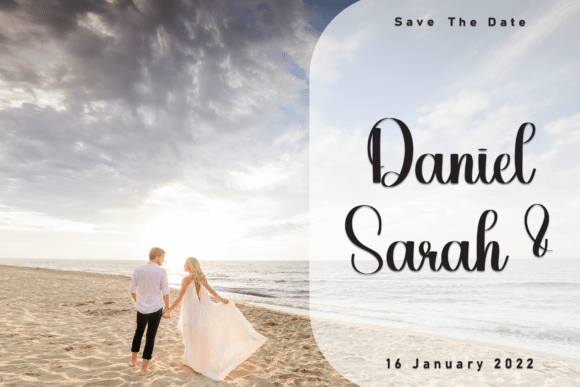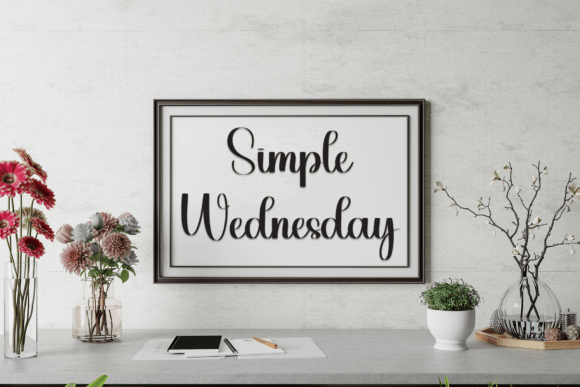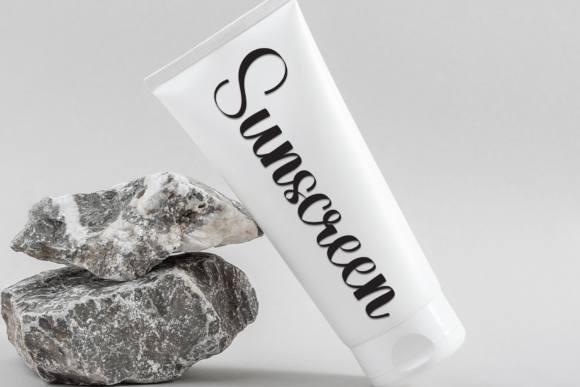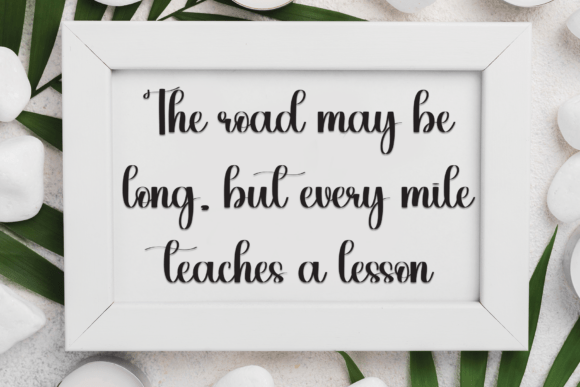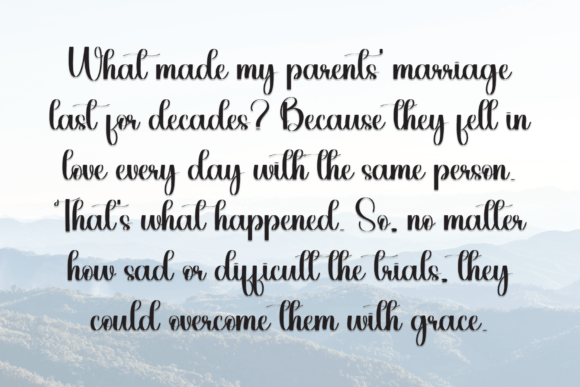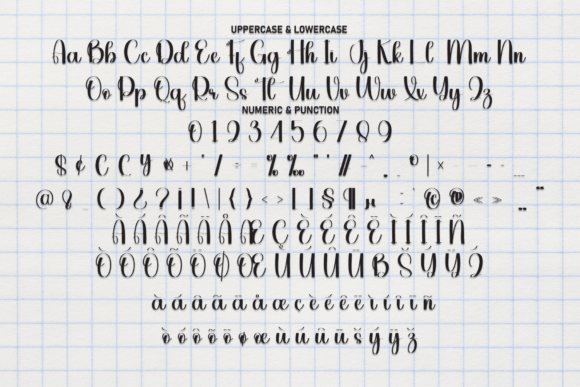
Calligraphy Font: Adding a Touch of Whimsy and Charm to Your Designs
Are you looking for a font that can add a dash of playfulness and warmth to your designs? Look no further than the enchanting calligraphy font that is taking the design world by storm. This hand-rendered display font is the perfect choice for designers and crafters who want to infuse their work with a sense of joy and friendliness. In this article, we’ll take a closer look at the features of this delightful font and explore how it can elevate your design work.
The Quintessential Choice for Wedding Invitations and More
This calligraphy font is a versatile and charming addition to any design project. Its joyful and inviting aesthetics make it the quintessential choice for designing wedding invitations, personalized cards, and other special occasion artwork. The font’s playful and whimsical nature also makes it perfect for adding a touch of personality to your designs, whether you’re creating artwork for a client’s business or a personal project.
Hand-Rendered with Love and Care
One of the standout features of this calligraphy font is its hand-rendered design. Each stroke has been carefully crafted to radiate warmth and charm, making it a true one-of-a-kind font. The font’s hand-rendered nature gives it a unique and organic feel that is sure to capture the hearts of your audience. Whether you’re designing for print or digital, this font is sure to make your work stand out from the crowd.
Infuse Your Designs with Joy and Friendliness
This calligraphy font is more than just a pretty face – it’s also a powerful tool for evoking emotions. With its joyful and inviting aesthetics, this font has the power to make your designs not only visually appealing but also emotionally captivating. By integrating this charming font into your work, you can seamlessly infuse joy and friendliness into any occasion, making it perfect for designers and crafters who want to create artwork that resonates with their audience.
Spark a Smile with Every Stroke
There’s something special about this calligraphy font that makes it impossible not to smile. With every stroke, you’ll feel the charisma that effortlessly sparks a wide smile from your audience. This font has a way of making your designs feel more approachable and inviting, which is perfect for creating artwork that needs to connect with people on an emotional level.
This calligraphy font is a must-have for designers and crafters who want to add a touch of whimsy and charm to their work. Whether you’re creating wedding invitations, personalized cards, or other special occasion artwork, this font is sure to be a game-changer. Its versatility and charm make it perfect for a wide range of design projects, from print to digital.
Tips for Using This Calligraphy Font
In conclusion, this calligraphy font is a true gem that is sure to bring a touch of whimsy and charm to your designs. Its hand-rendered nature, joyful aesthetics, and emotional resonance make it the perfect choice for designers and crafters who want to create artwork that resonates with their audience. Whether you’re designing for print or digital, this font is sure to elevate your work and make it stand out from the crowd. So why wait? Give this enchanting calligraphy font a try today and see the magic for yourself!